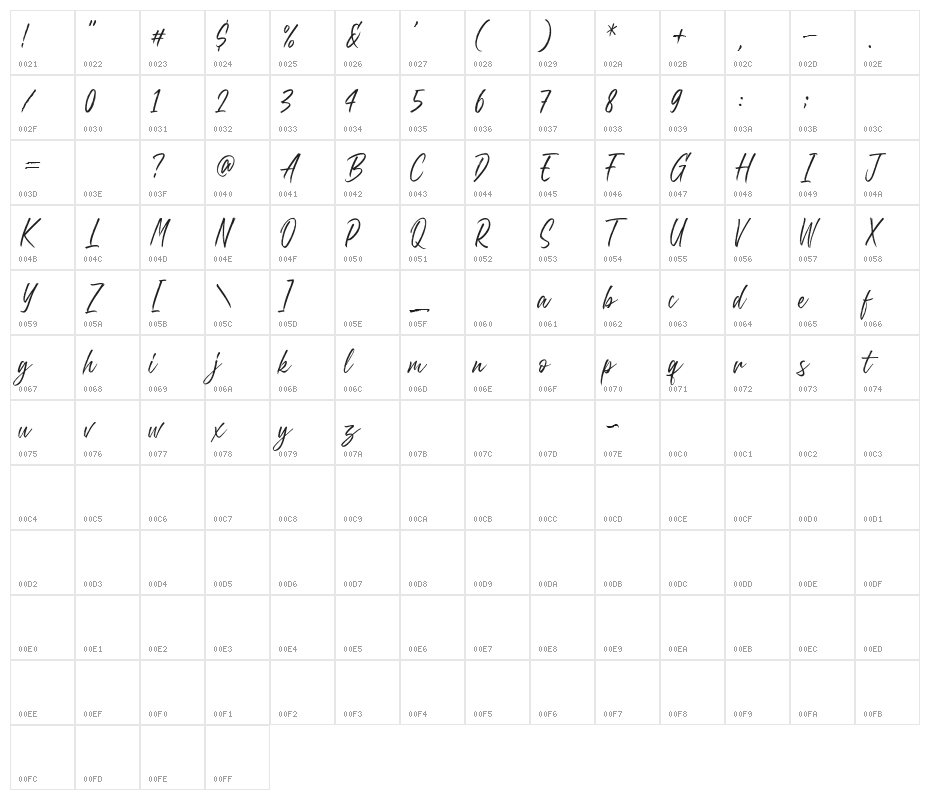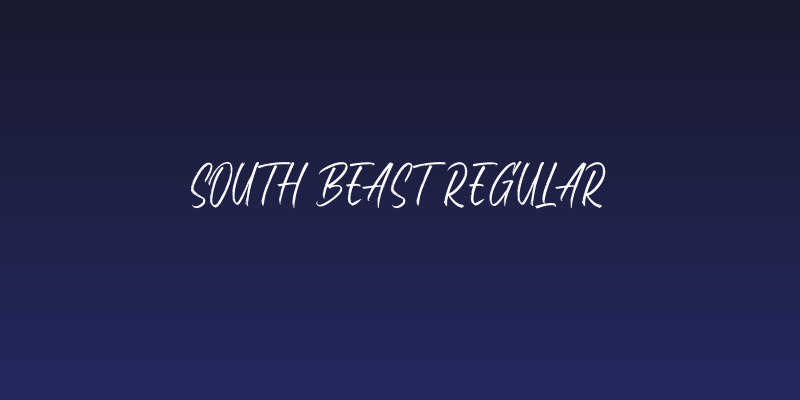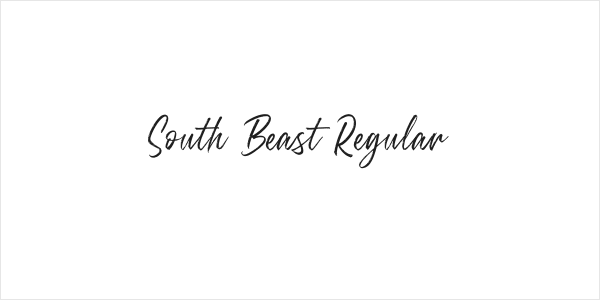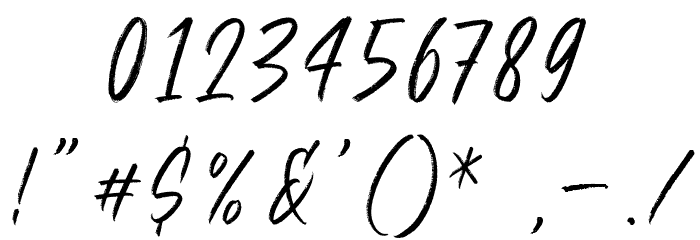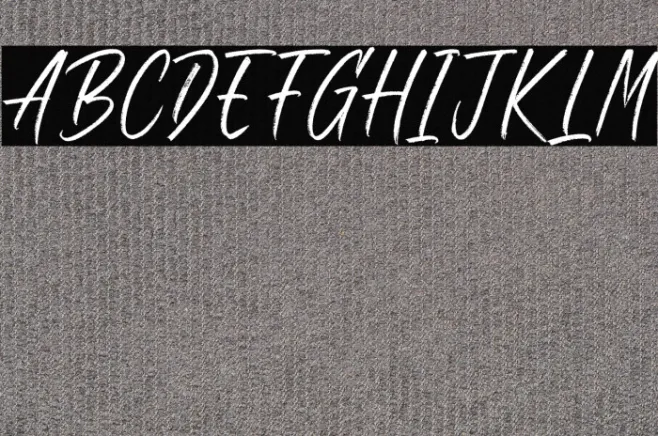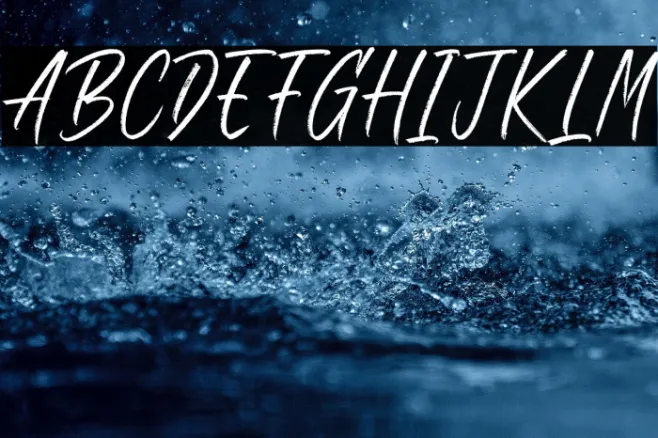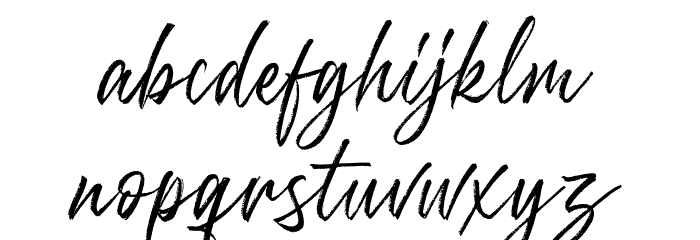
South Beast Regular Font
South Beast Regular Description
This font features a dynamic and expressive script style, characterized by its fluid, handwritten appearance. The letters are slightly slanted, giving a sense of motion and energy. The strokes vary in thickness, providing a natural and organic feel. The uppercase letters are bold and prominent, while the lowercase letters maintain a consistent flow. The numerals and special characters complement the overall style, making it versatile for various design needs. The font's brush-like texture adds a touch of authenticity and creativity, perfect for projects that require a personal and artistic touch.
| Proposed Projects | Ideal for branding, invitations, greeting cards, and artistic projects requiring a personal touch. |